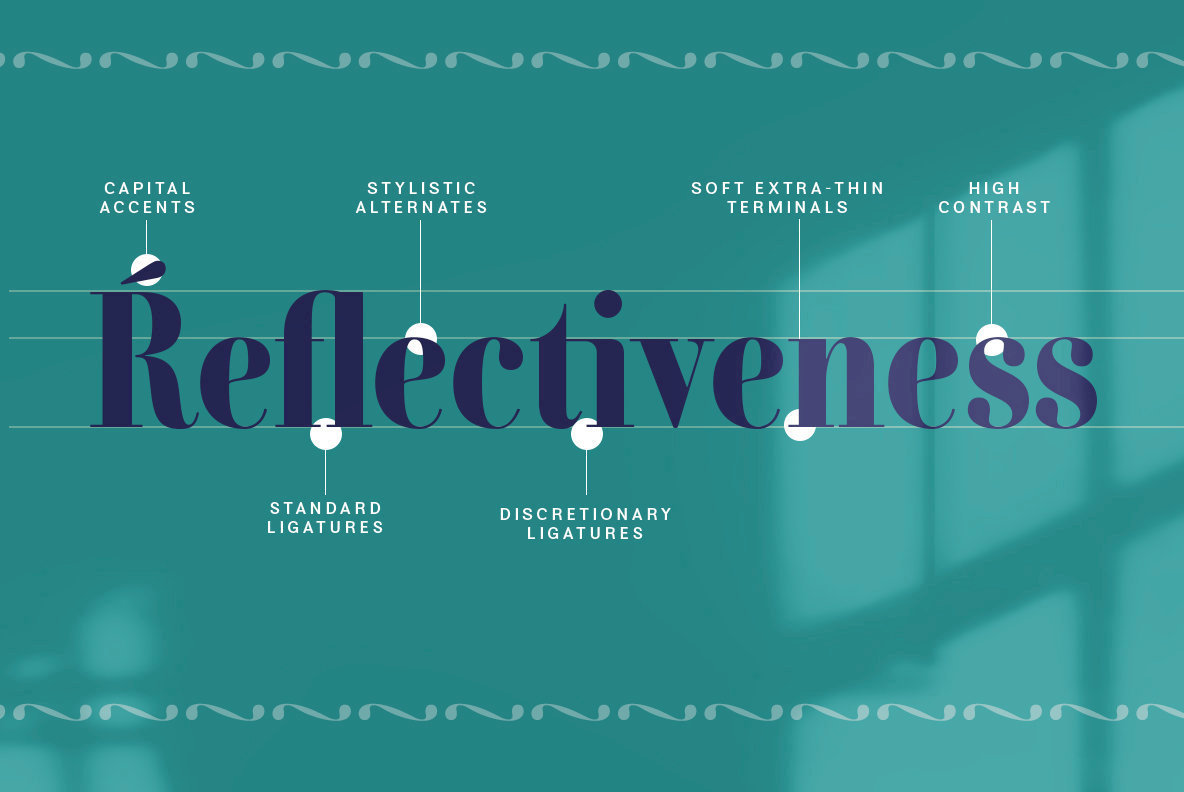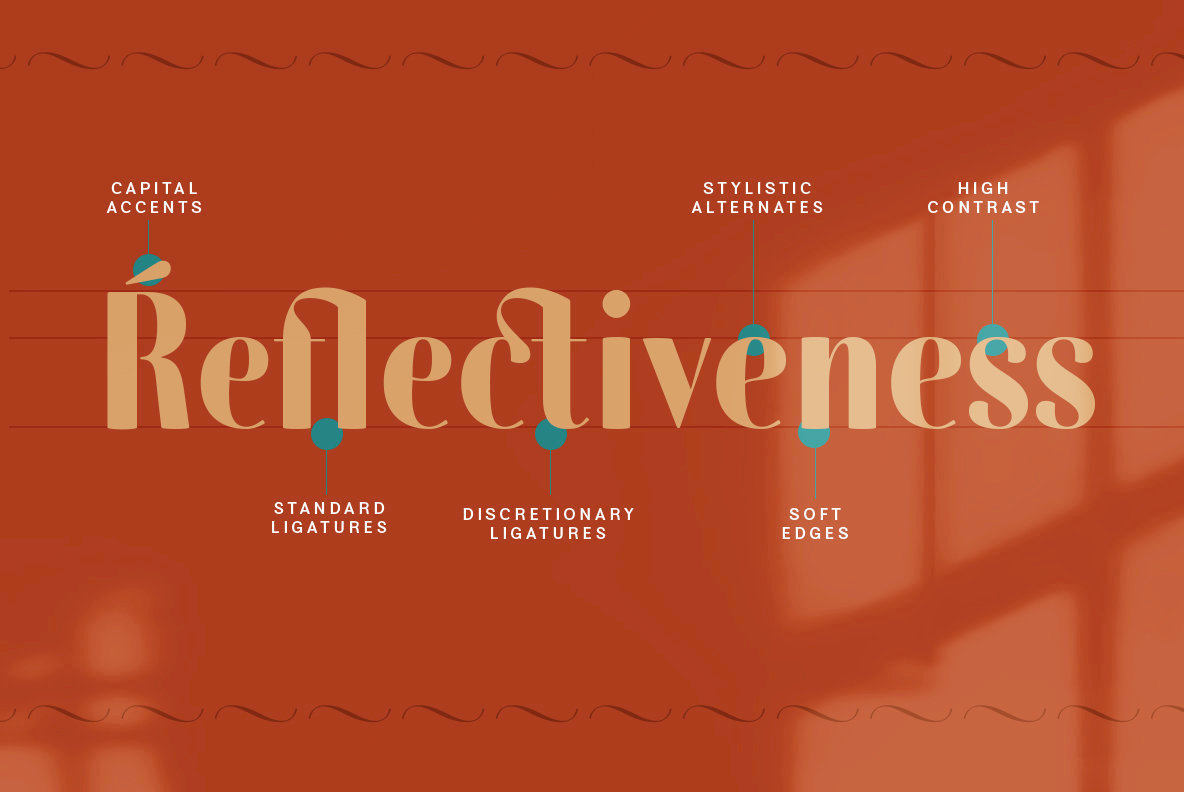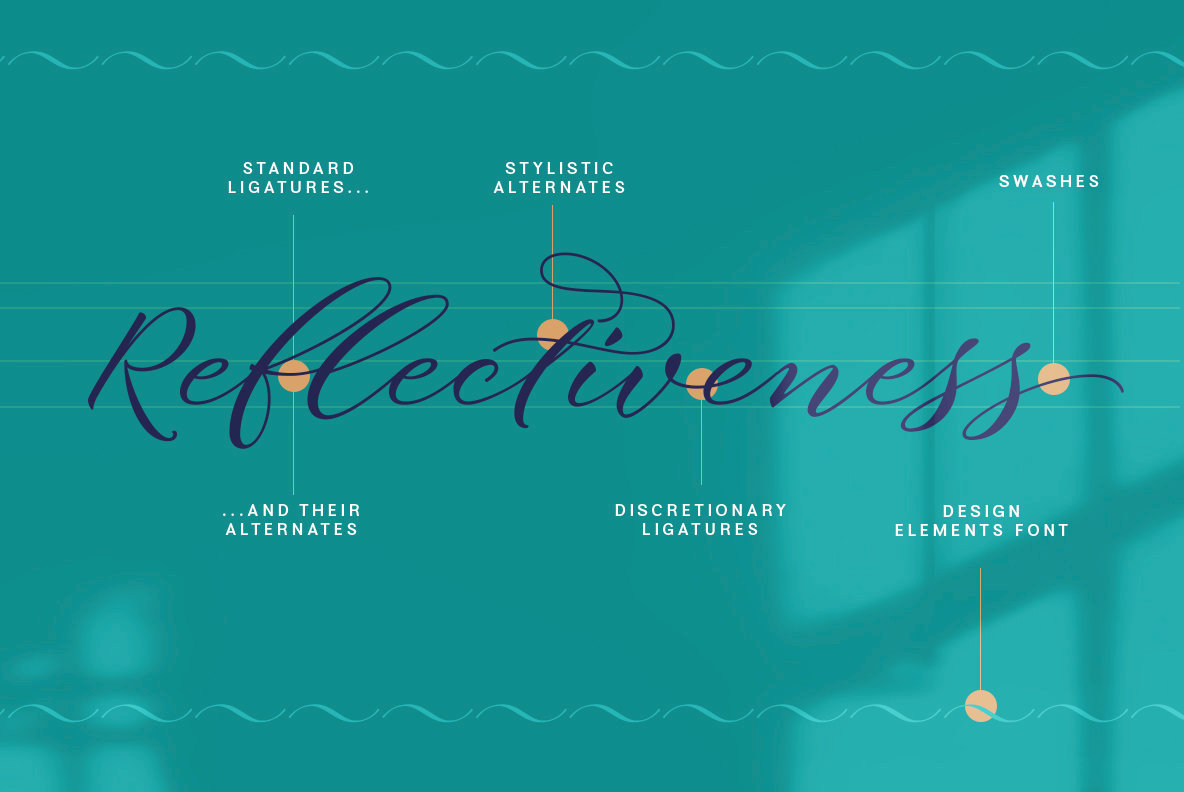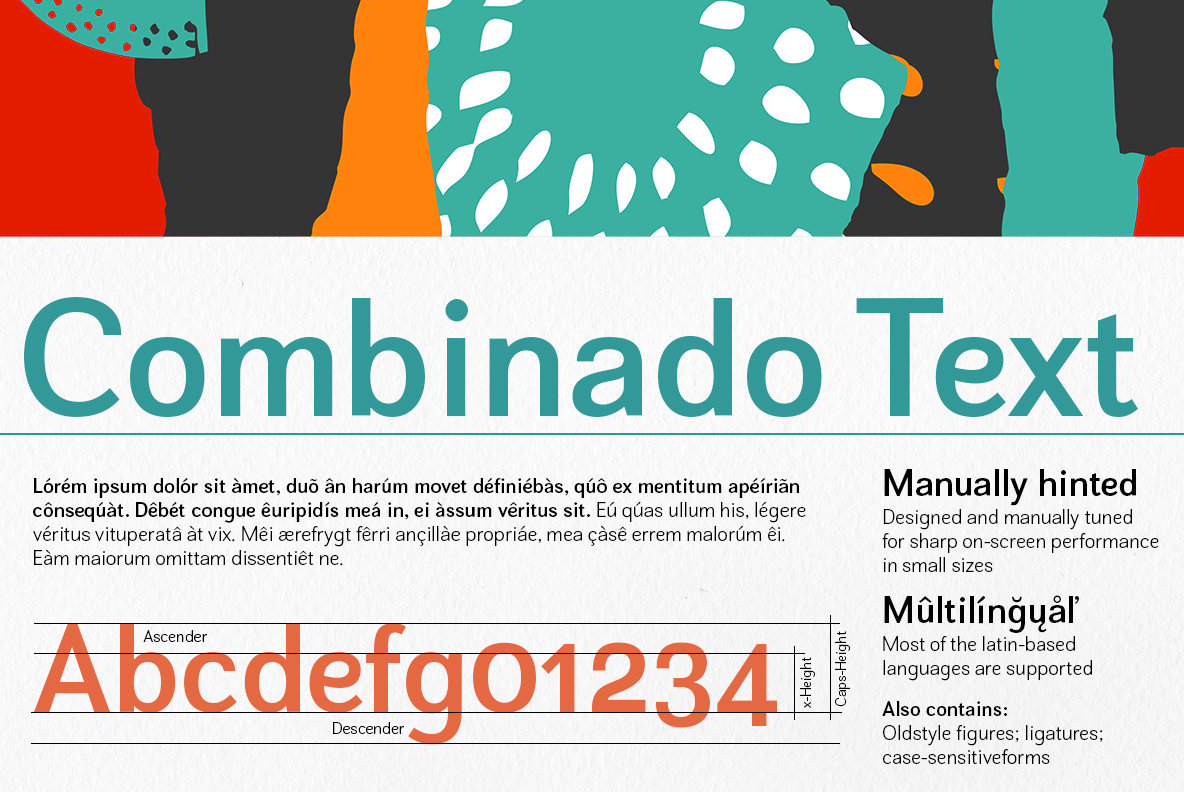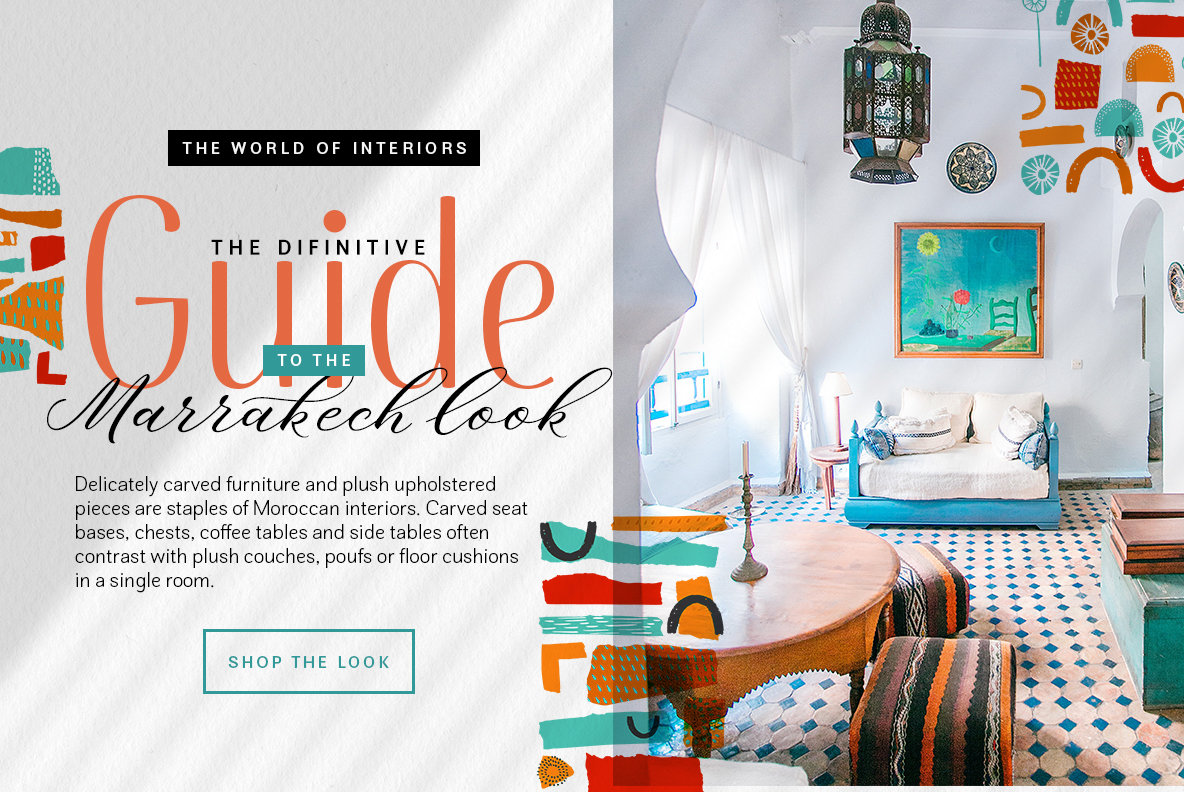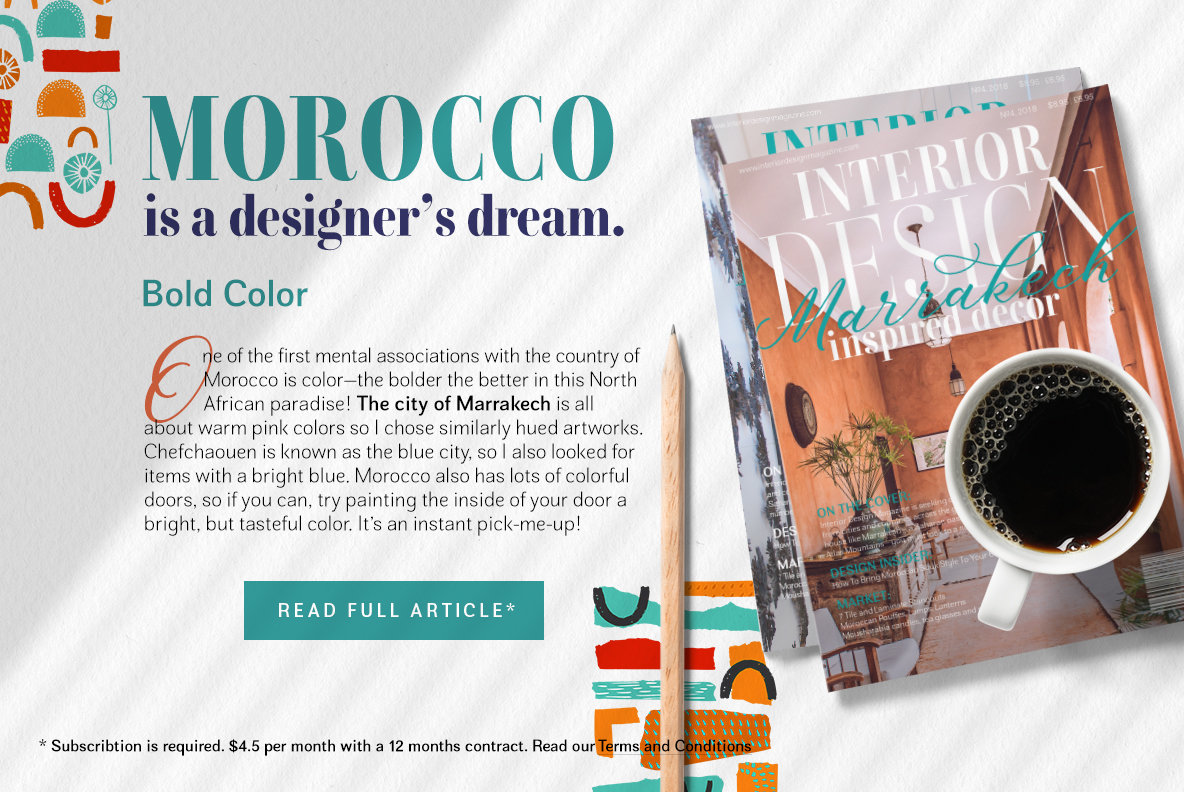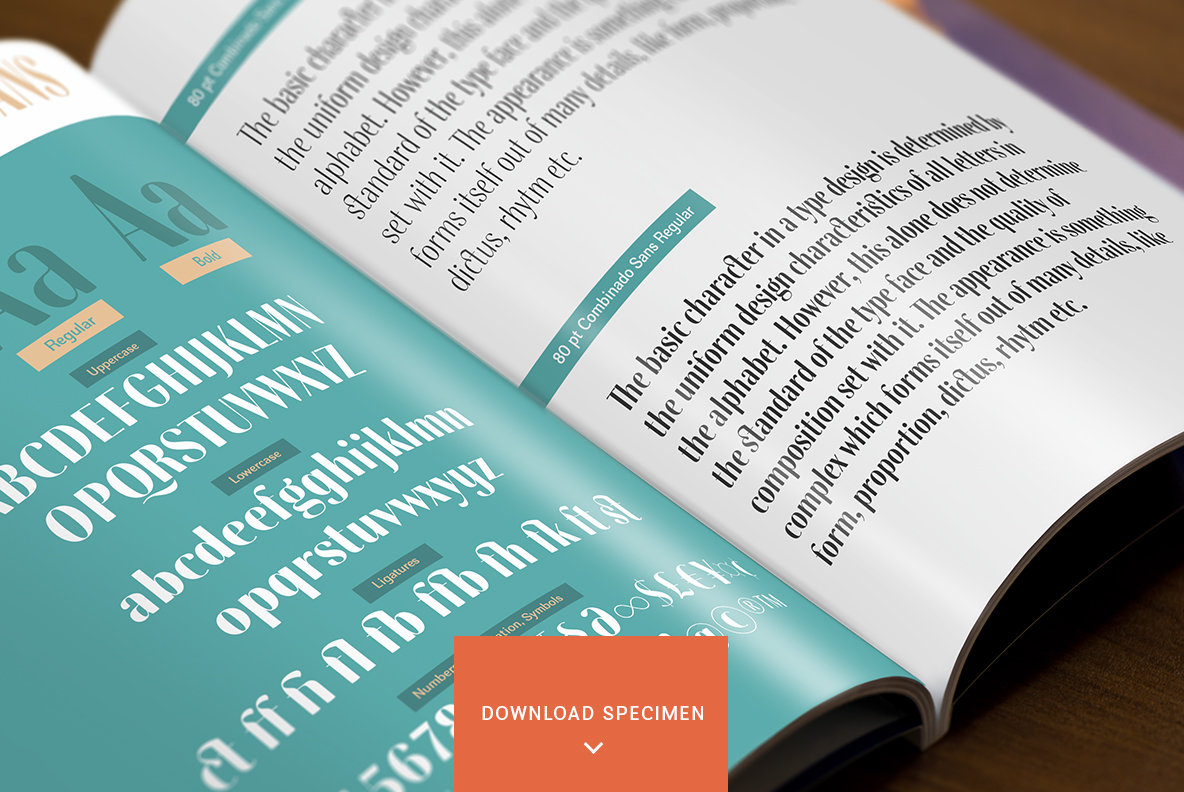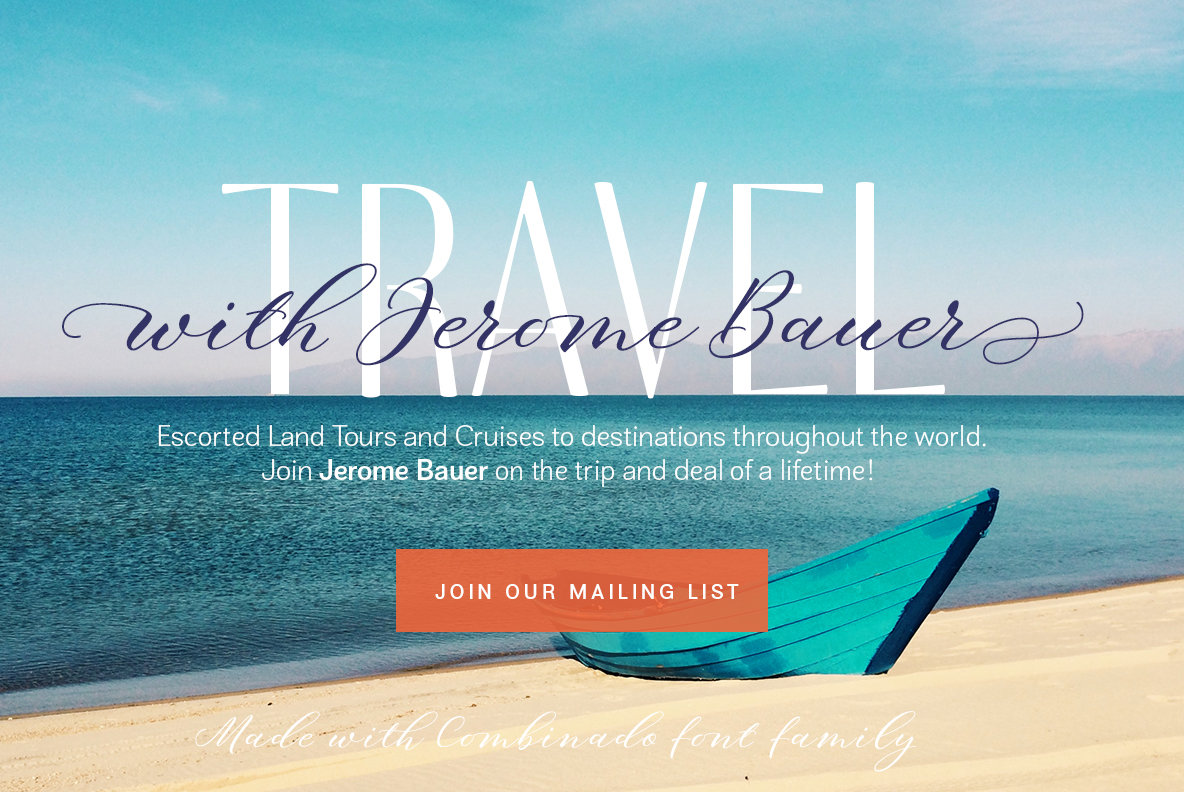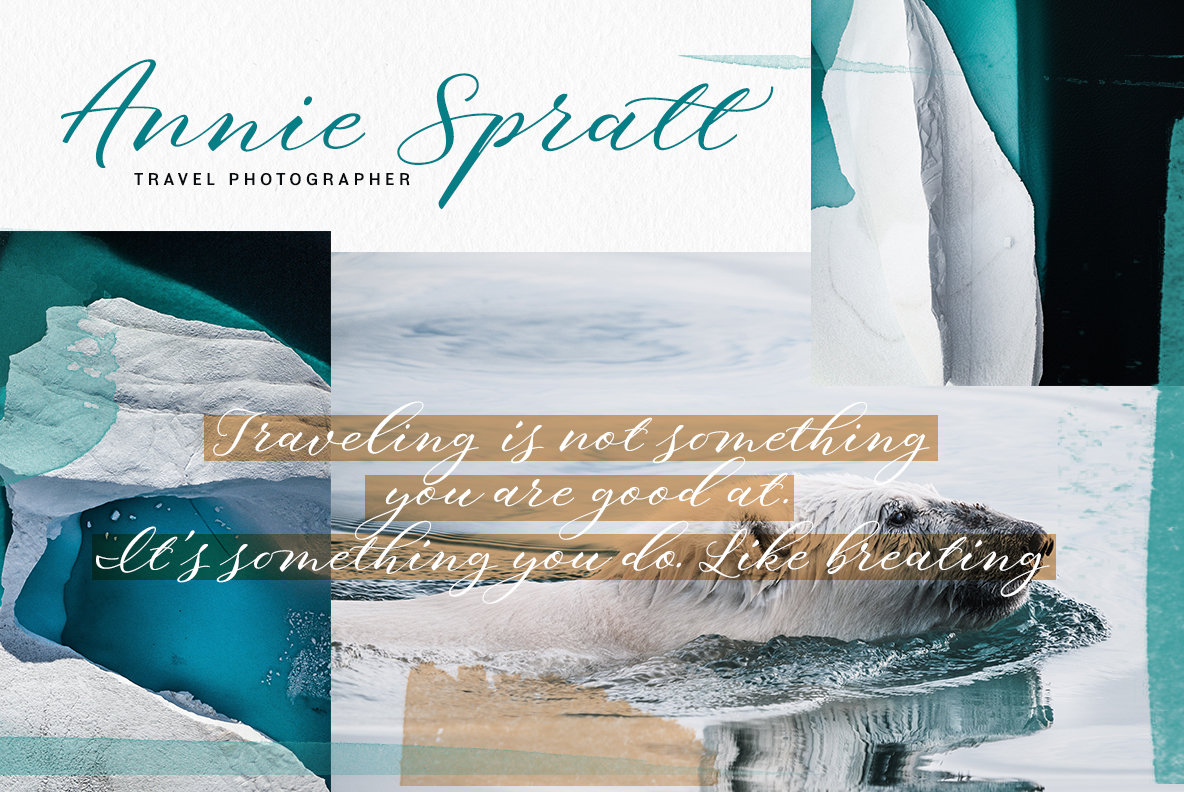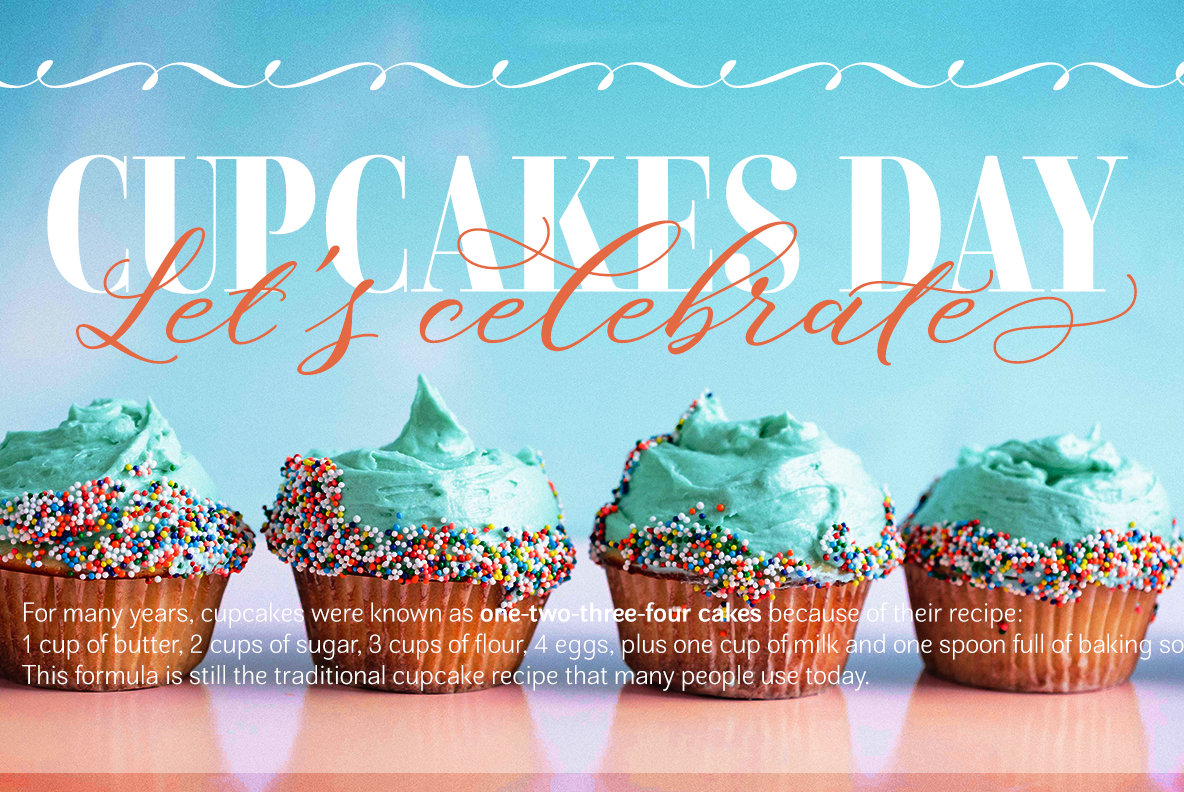
Combinado Font
The Combinado Font Family by My Creative Land offers an all-encompassing suite of typefaces, each tailored to meet the diverse needs of modern designers. With elegant display sans and serif fonts available in three distinct weights, this collection provides a sophisticated touch for a variety of projects. Accompanied by a modern calligraphy script, Combinado ensures cohesive aesthetics when paired with its elegant counterparts. Additionally, a sans serif font specifically engineered for optimal on-screen legibility is included in two weights, with plans to expand further. Completing this comprehensive family is a Design Elements font, boasting over 70 decorative components to enhance your creative endeavors. Whether you're designing websites, Instagram ads, publications, or invitations, Combinado caters to all domains, making it an essential addition to any designer's toolkit.Combinado: A Versatile Font Family for All Your Design Needs